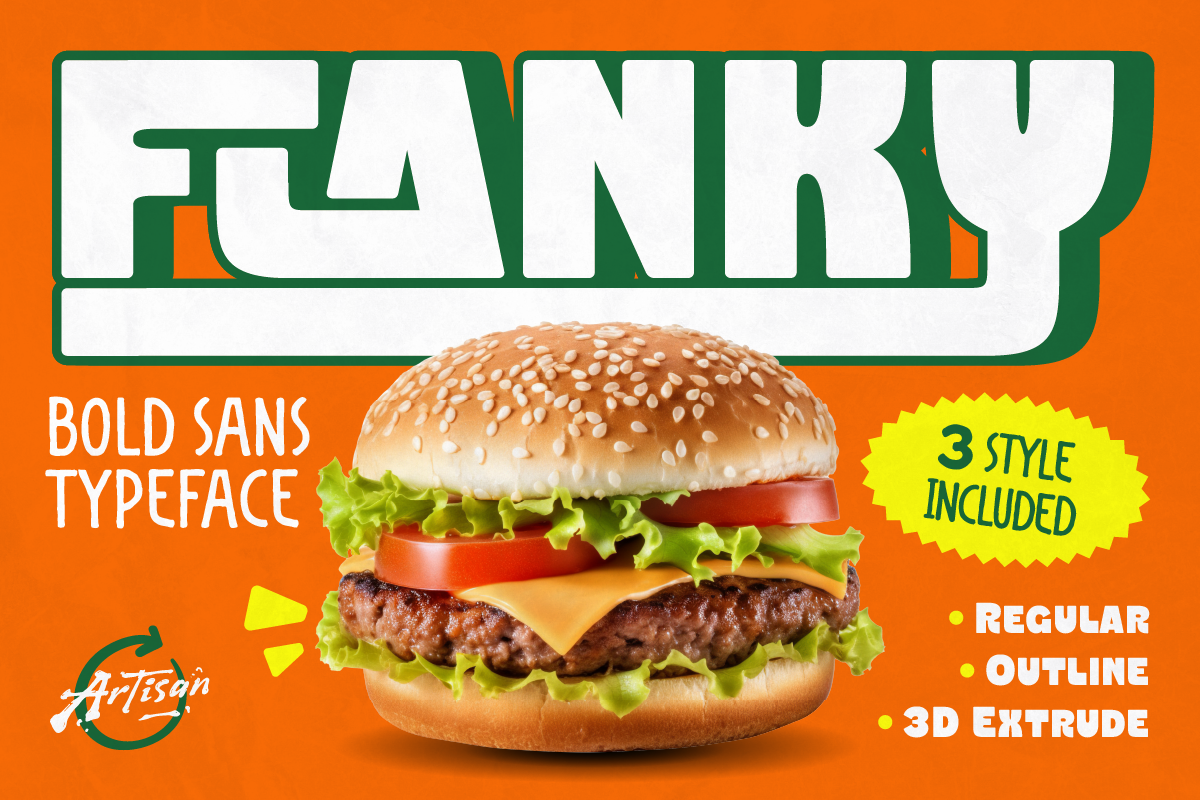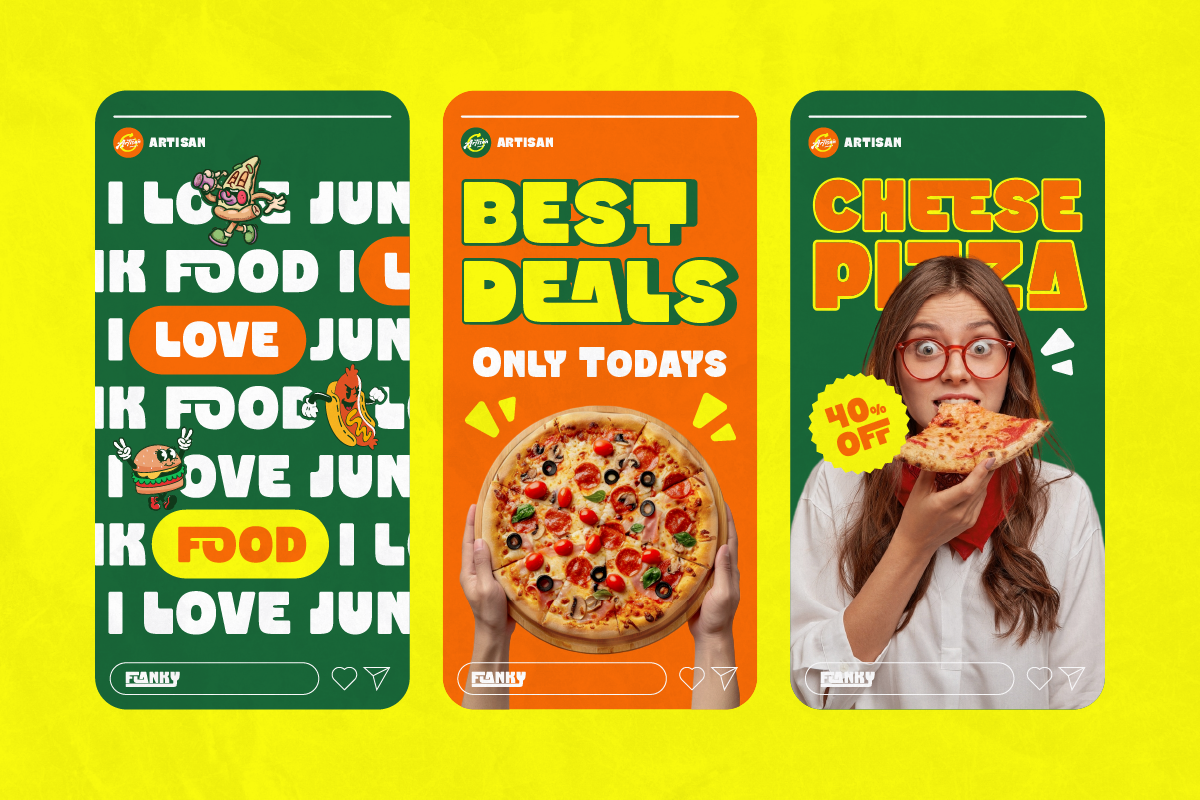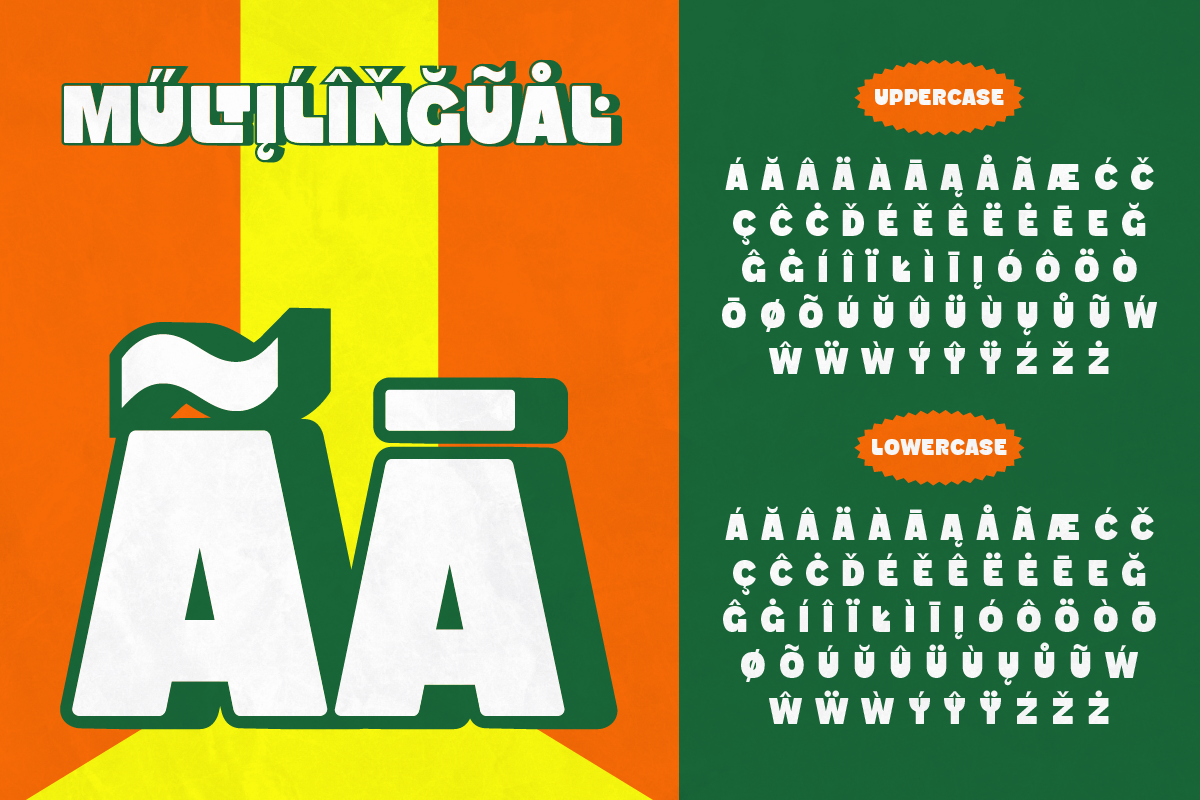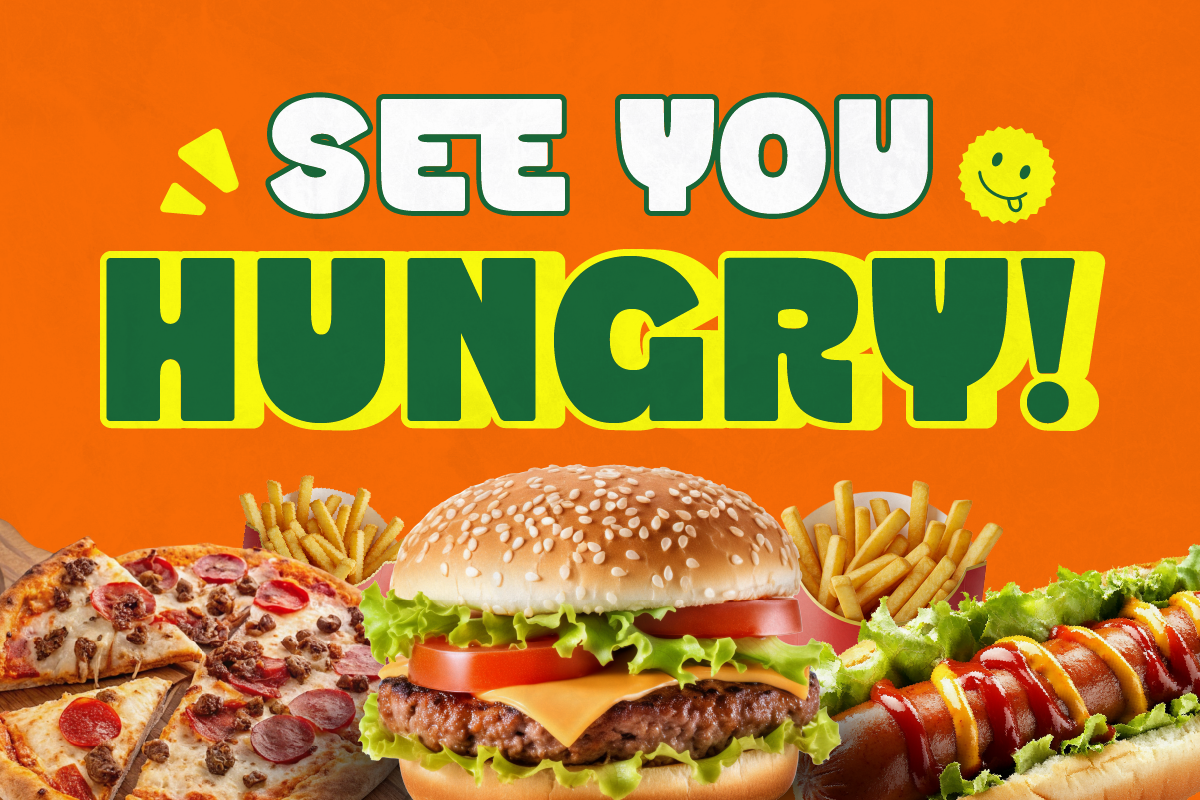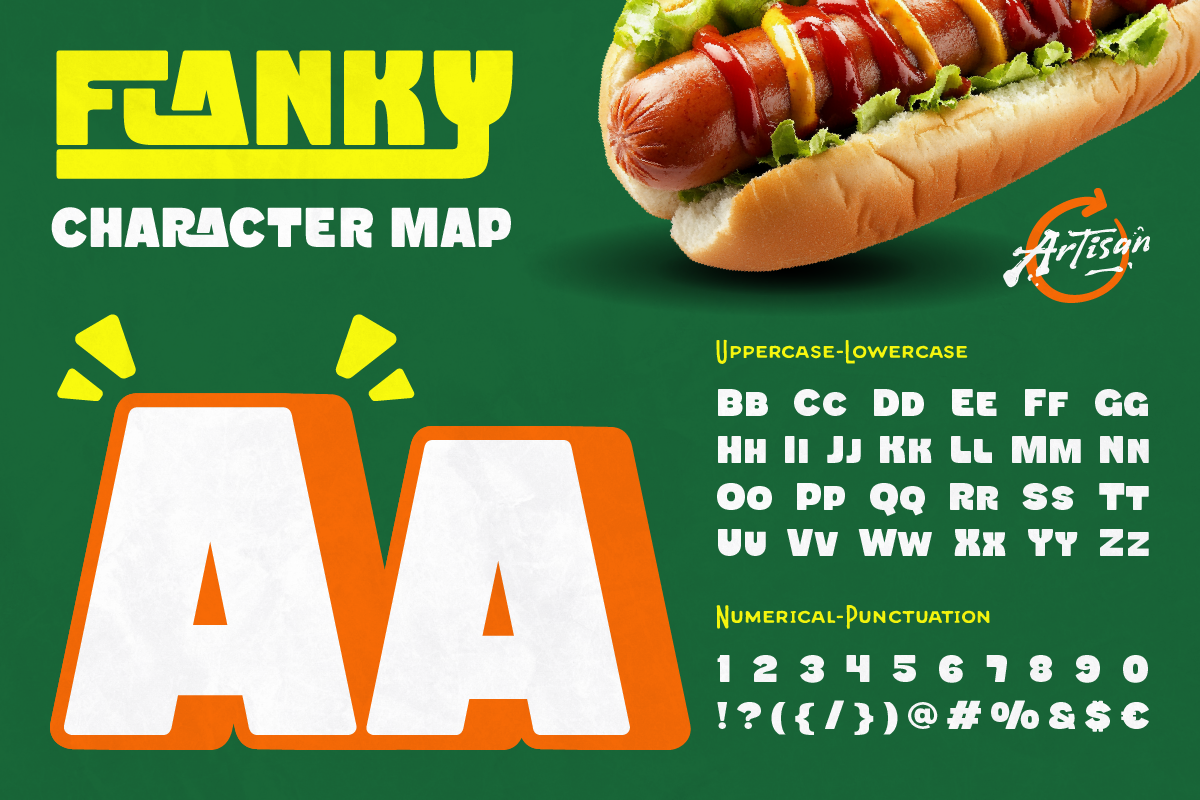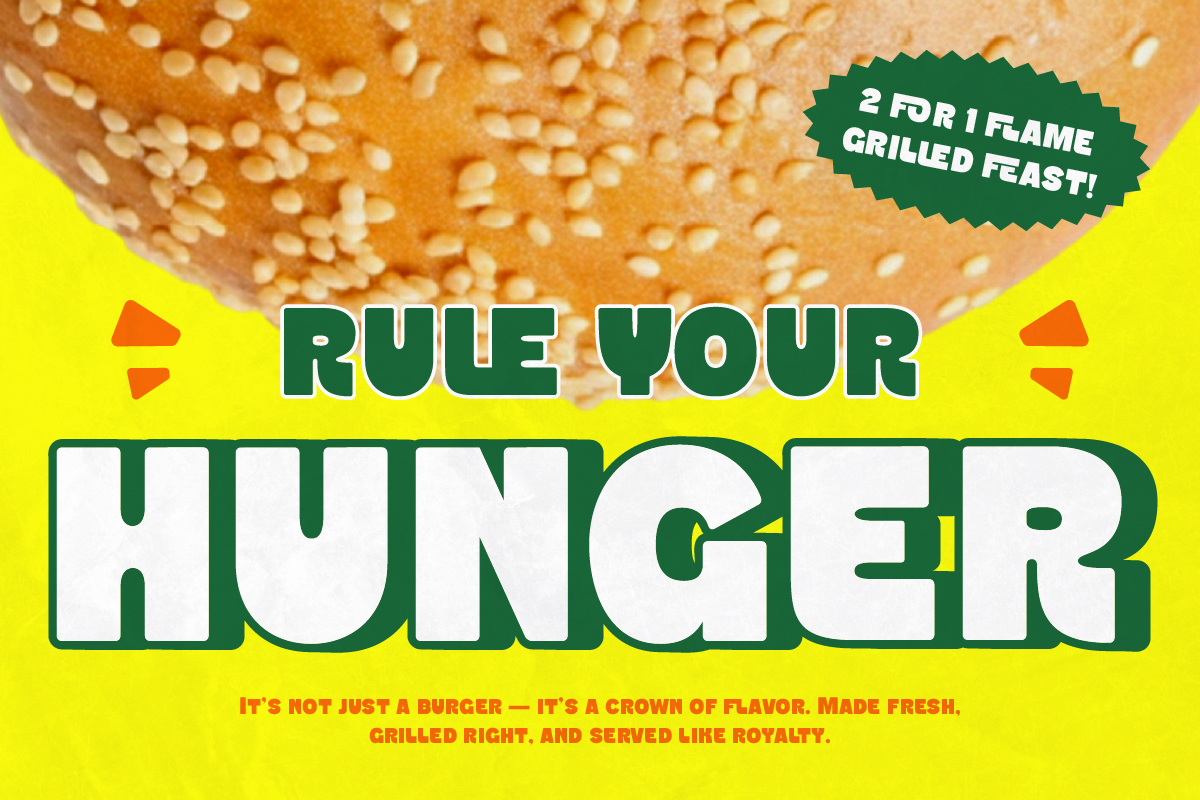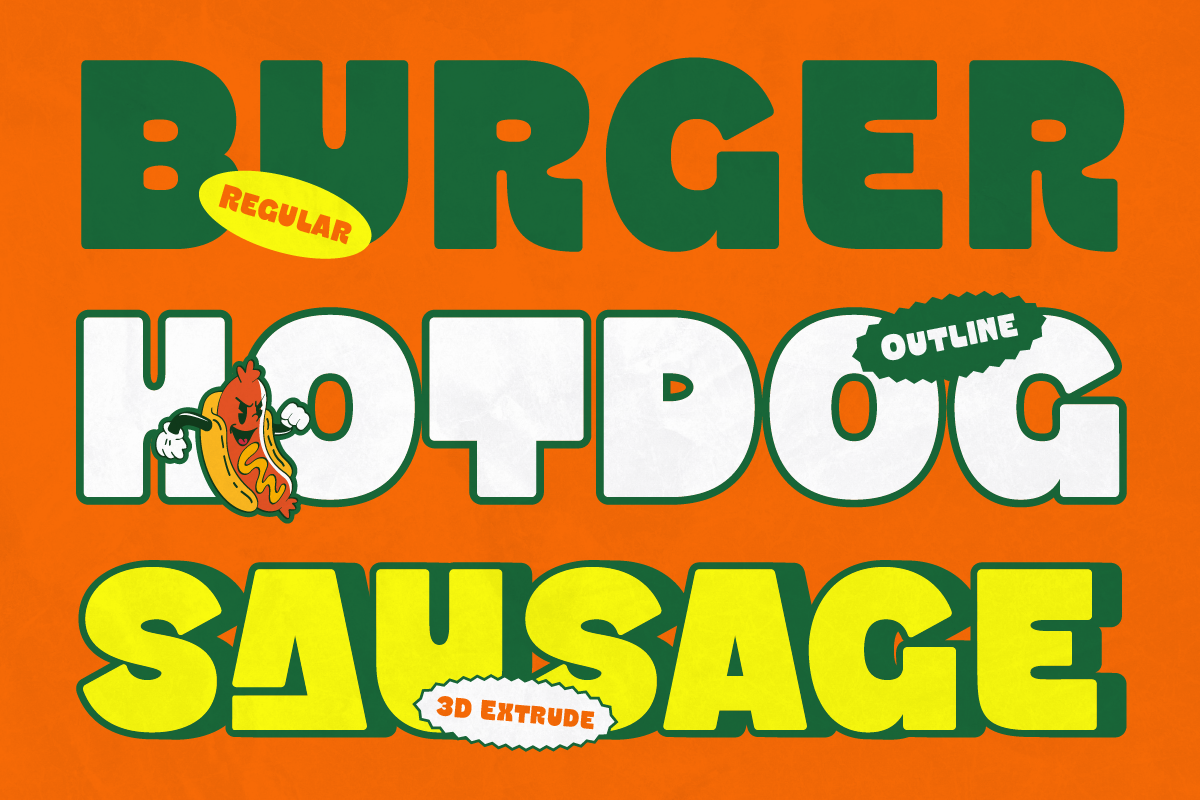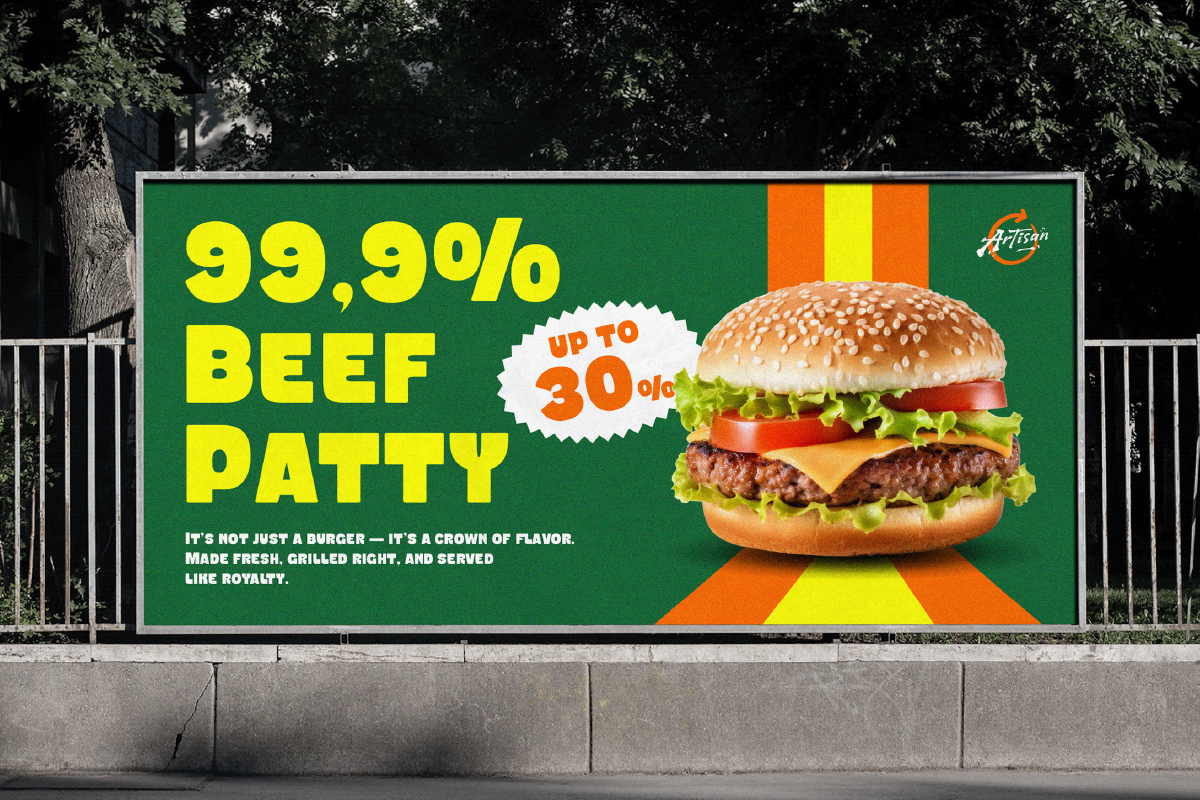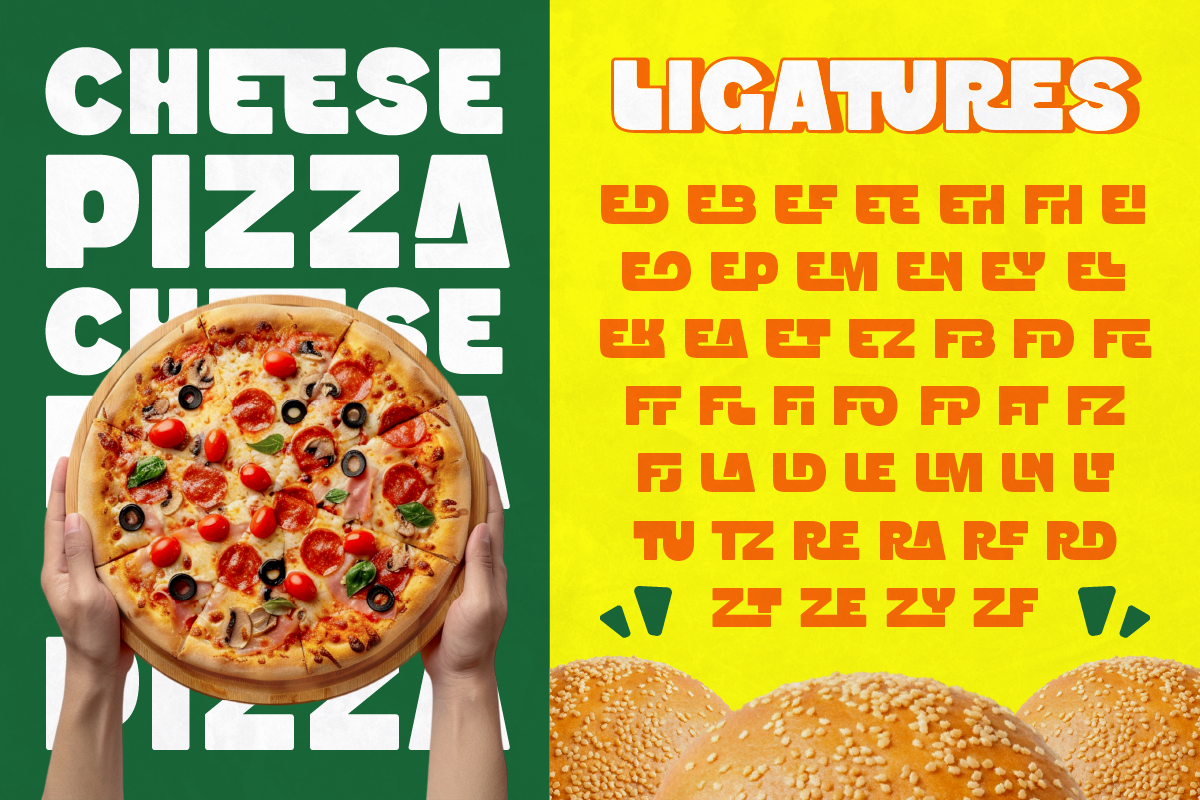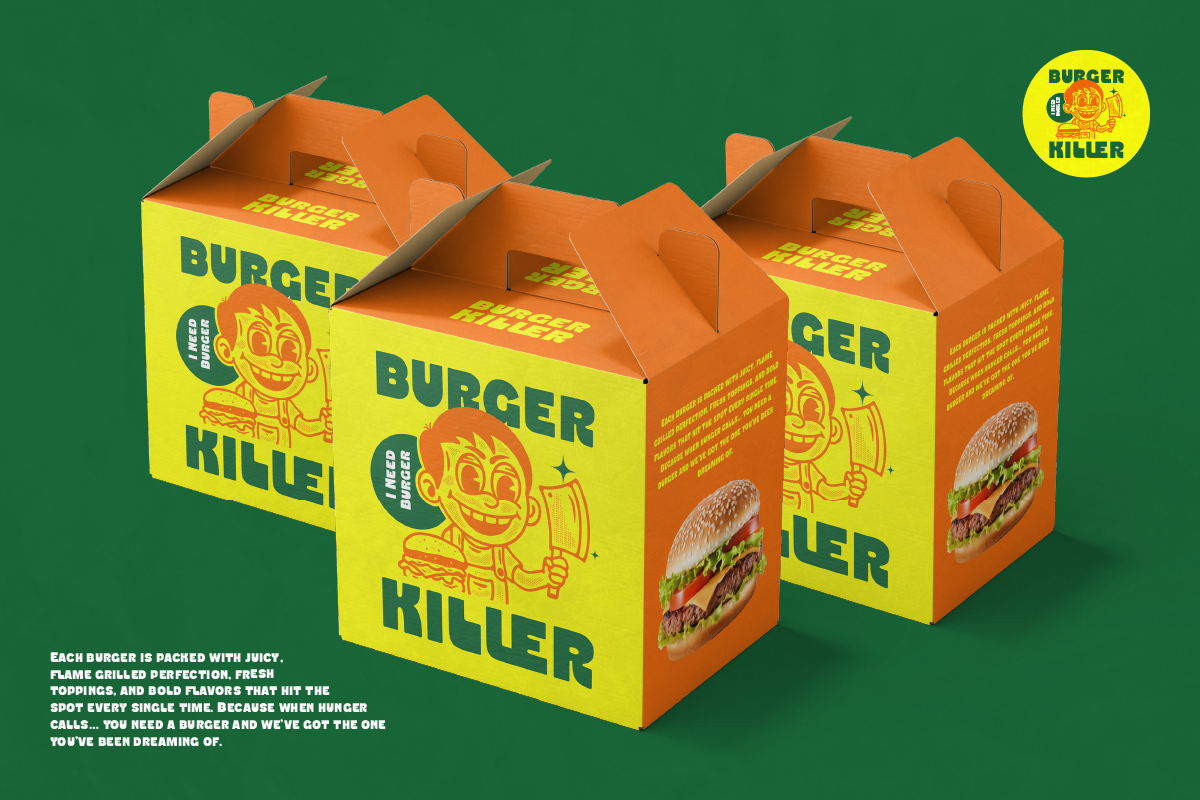
Flanky
REGULAR
OUTLINE
3D EXTRUDE
Flanky – Bold Sans Typeface
Meet Flanky, your new go-to font for everything bold, tasty, and full of life! πŸ”
It’s got that confident shape and friendly curves that make any design look juicy β€” just like a fresh burger hot off the grill. Whether you’re making a poster, logo, or menu, Flanky brings that warm, feel-good energy that instantly grabs attention.
Comes in 3 delicious styles β€” Regular, Outline, and 3D Extrude β€” so you can mix and match for extra flavor. Plus, it’s packed with ligatures to keep your text looking smooth and fun.
Perfect for food brands, retro ads, fast-food packaging, or anything that needs a bold and cheerful vibe.
So go ahead β€” rule your hunger for great design with Flanky!
Perfect For:
• Food branding (burger, pizza, fast food, street food)
• Restaurant menus & cafe signage
• Packaging design (snacks, beverages, food labels)
• Retro & vintage posters
• Bold advertising & promotions
• Logo design with playful personality
• Social media graphics & Instagram posts
• YouTube thumbnails & content covers
• Event posters & festival flyers
• Kids-friendly or fun branding projects
• A – Z set (Uppercase & Lowercase)
• Number
• Alternates
• Ligatures
• Punctuation
• Multilingual